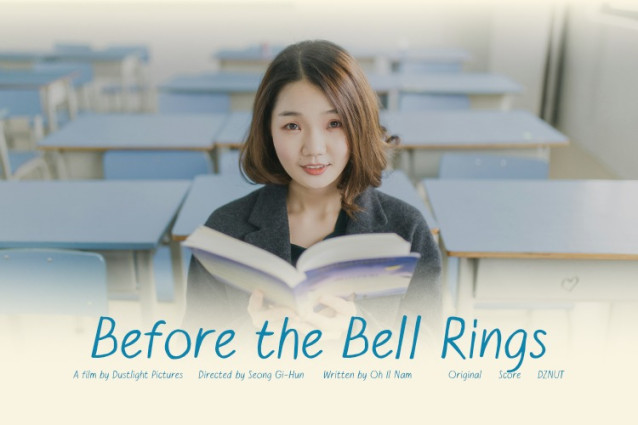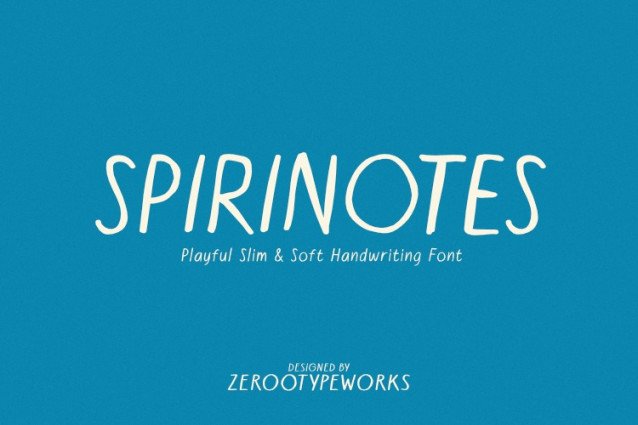
ZRTW Spirinotes Font
ZRTW Spirinotes Font is a casual slim handwritten font inspired by notebook scribbles and study aesthetics. It’s perfect for bullet journals, YouTube thumbnails, daily quotes, and cozy digital planners. With its tall and airy letterforms, Spirnotes adds a fun, approachable touch to any design while staying clean and legible. Ideal for creators looking for soft, minimal handwriting style. This font is good for any of your design who need good spirit vibes.